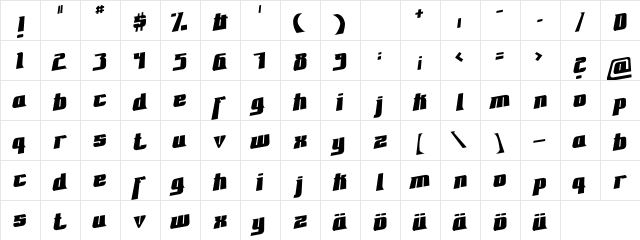
Fontovision II 3D
Design Context for Fontovision II Typeface
Fontovision II is a composed and adaptable typeface that performs quietly and consistently across a wide range of design contexts.